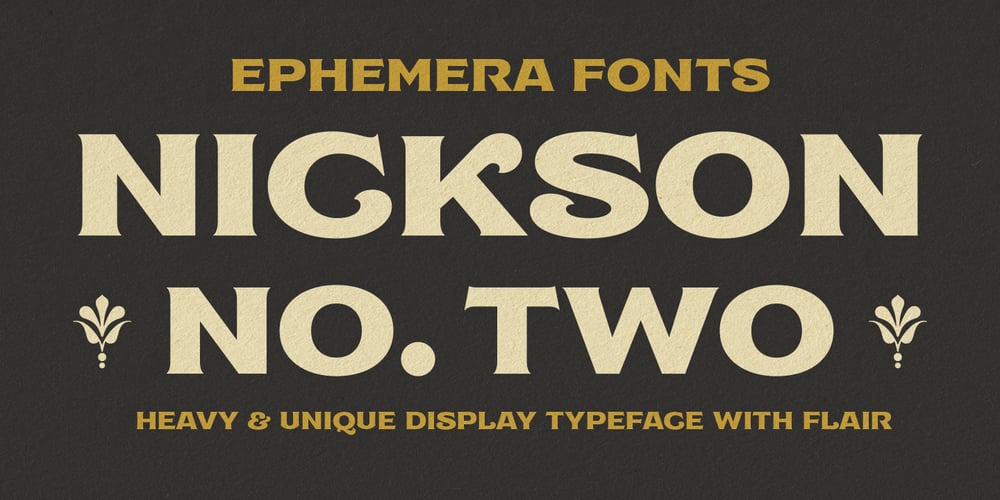
Ephemera Nickson Font Family was designed by Gilang Purnama Jaya and published by Ephemera Fonts. Ephemera Nickson contains 1 styles and family package options. The Nickson pro 1 invokes the spirit of the cigar labels & circus poster from the early 1900’s.A typeface designed for headlines, posters, advertising and corporate identity. There are Alternate character of uppercase. Check the alternate keys file for more info or if you’re using the OT version simply select Stylistic Set.